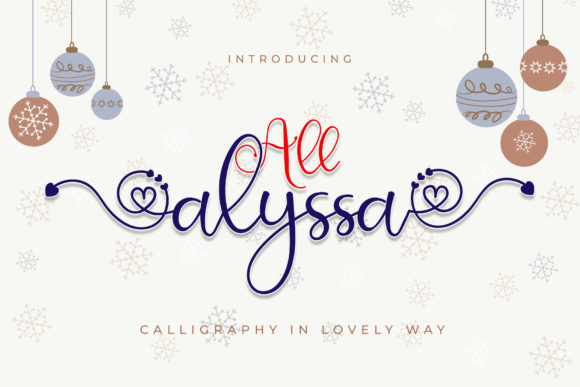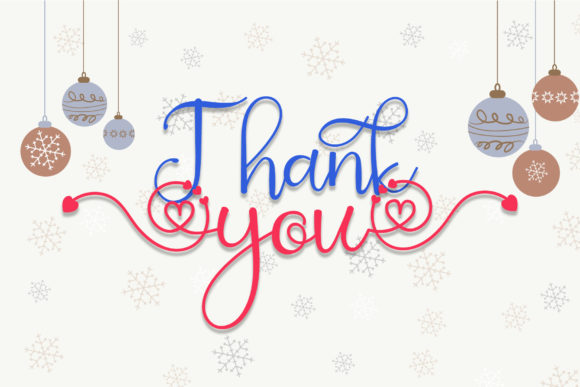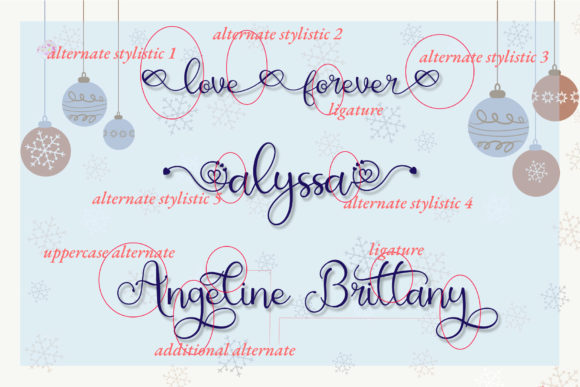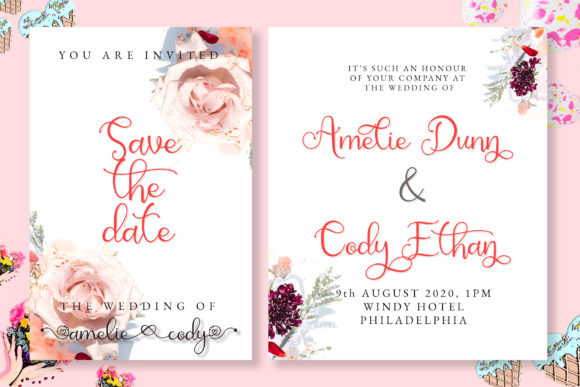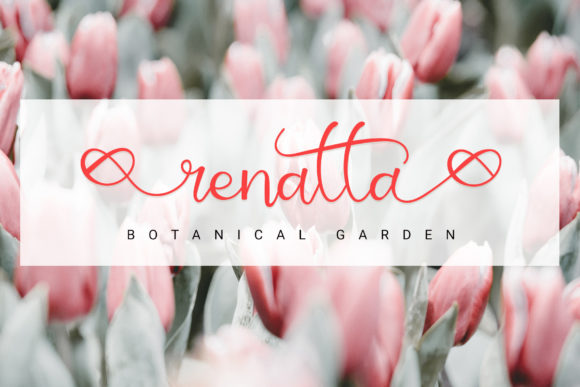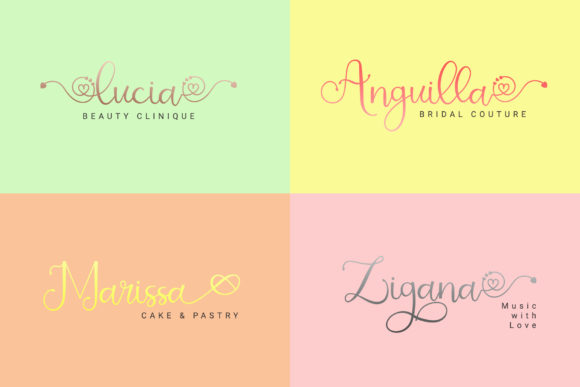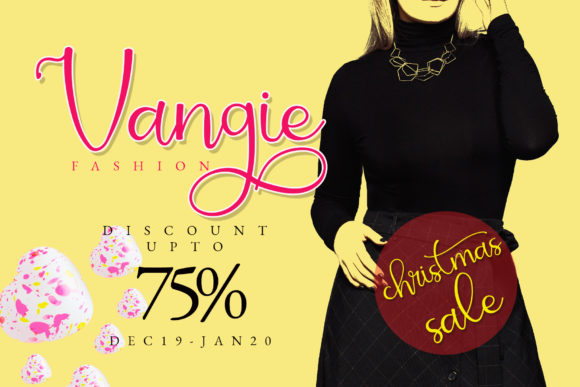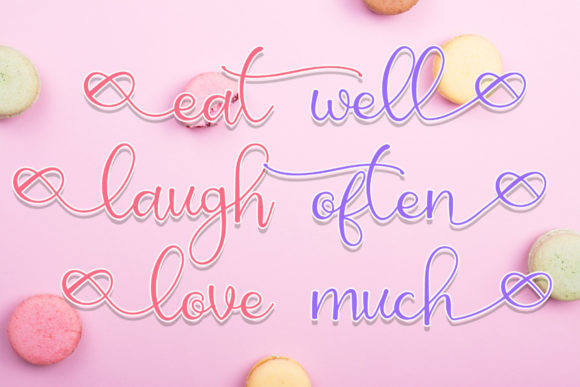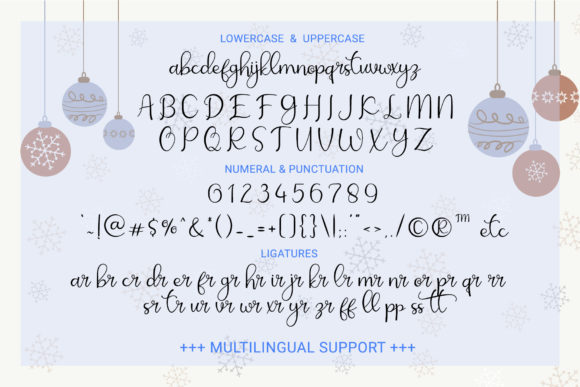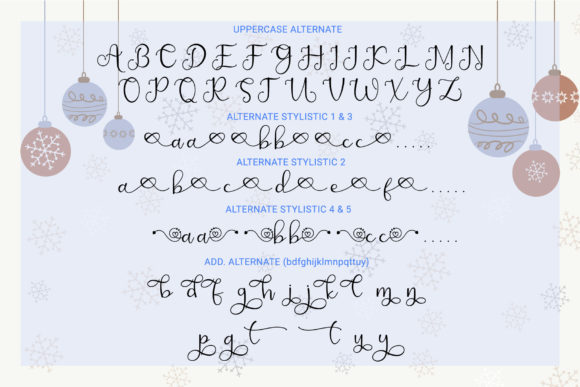
All Alyssa Font
About All Alyssa Font
All Alyssa is a beautiful and elegant script font with a modern touch. It has PUA Encoded love-themed swashes that will make your project incredibly lovely and beautiful.